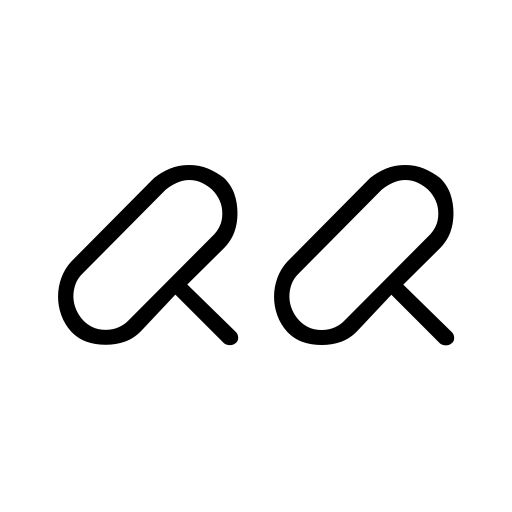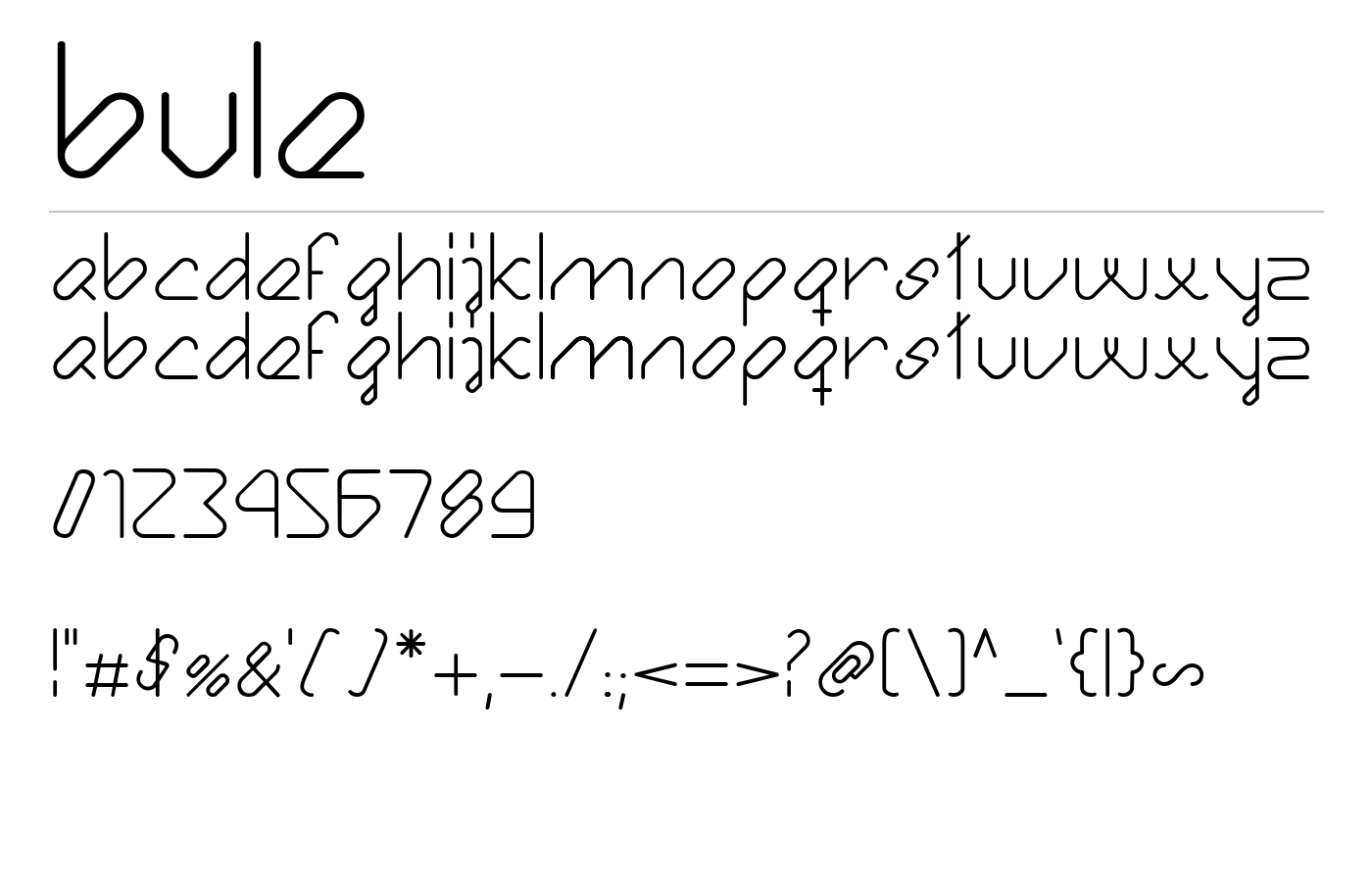
Bule Font is a modern, thin-line sans serif with a geometric and slightly playful character. Its narrow width and consistent stroke weight give it a clean yet distinctive look, making it ideal for contemporary branding, headlines, and tech-focused designs that seek a sleek and creative vibe. This font works well for projects needing a minimalist style with a unique, futuristic touch.
Bule Font
About Bule Font
| Font family | Bule Font |
| Designer | C?sar G?mez Blanco |